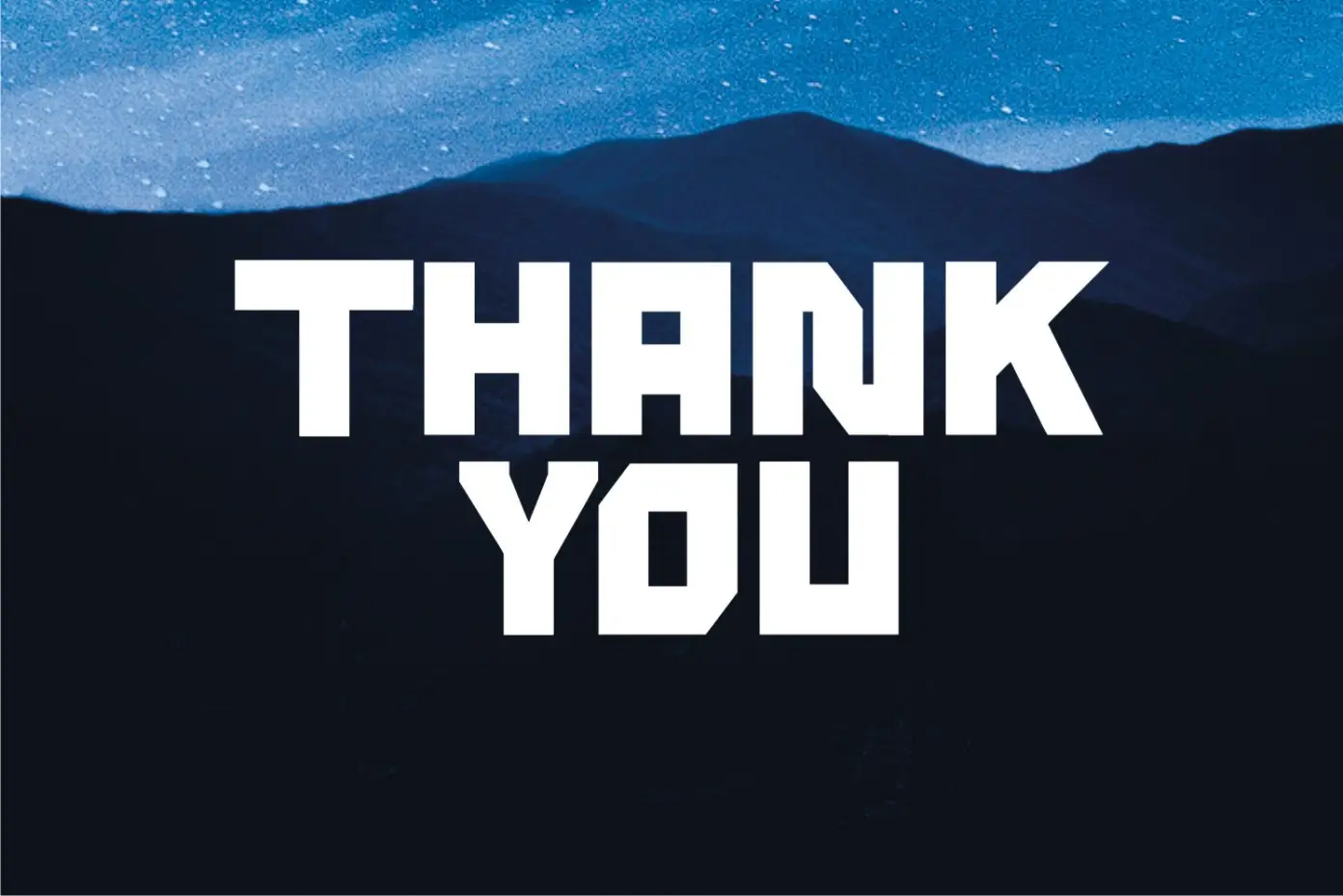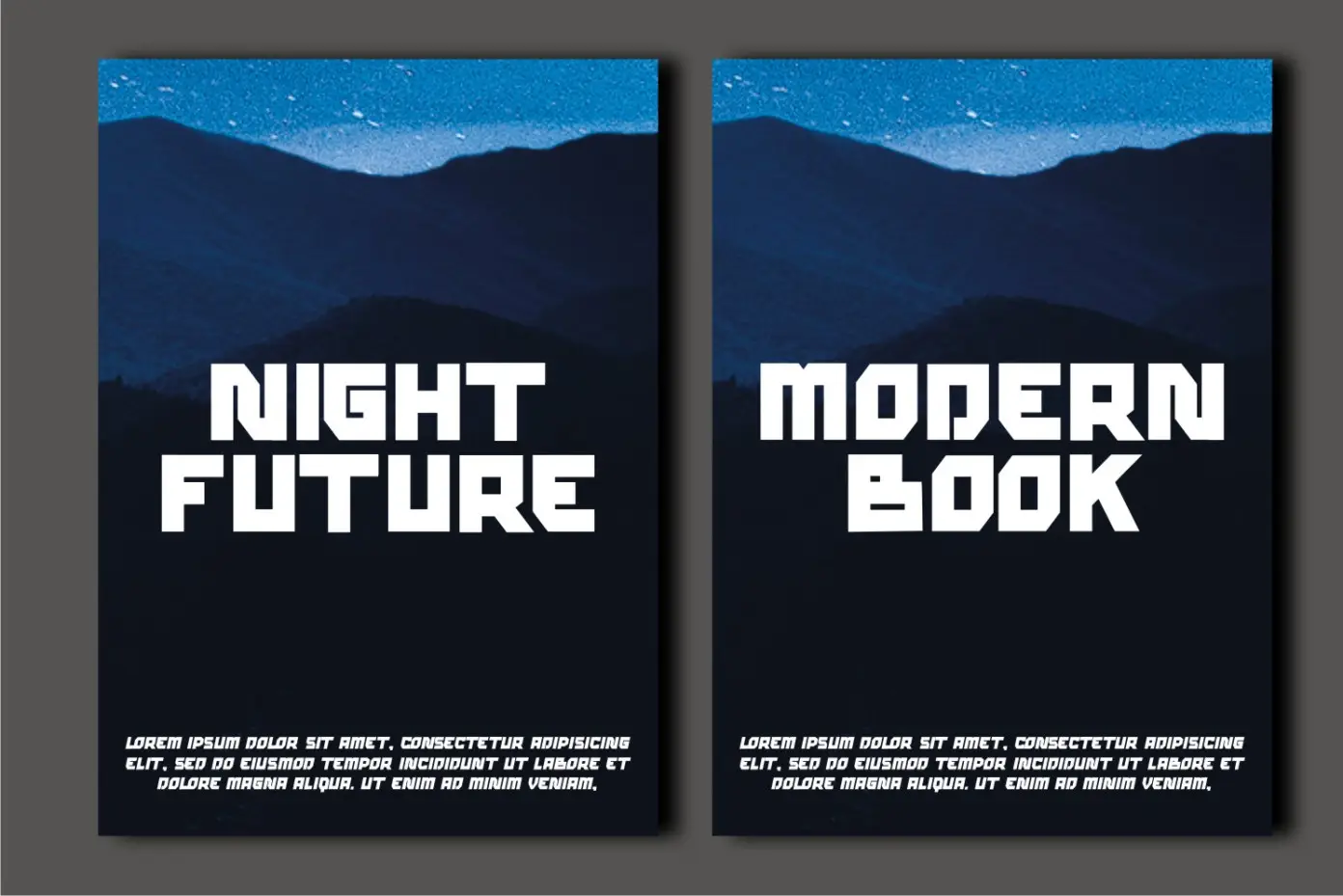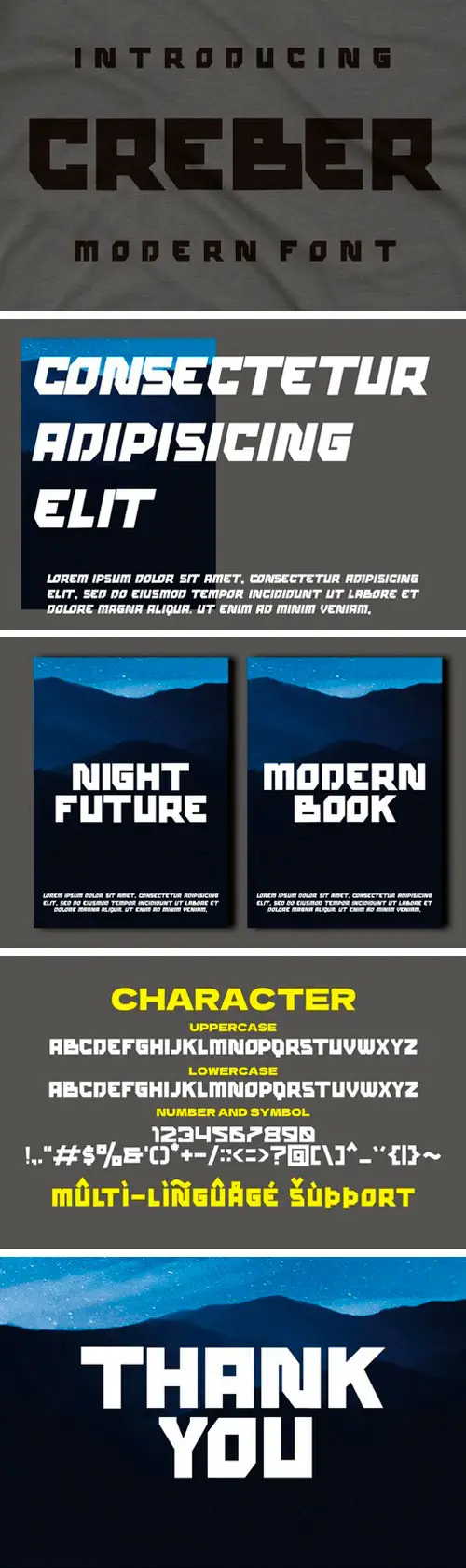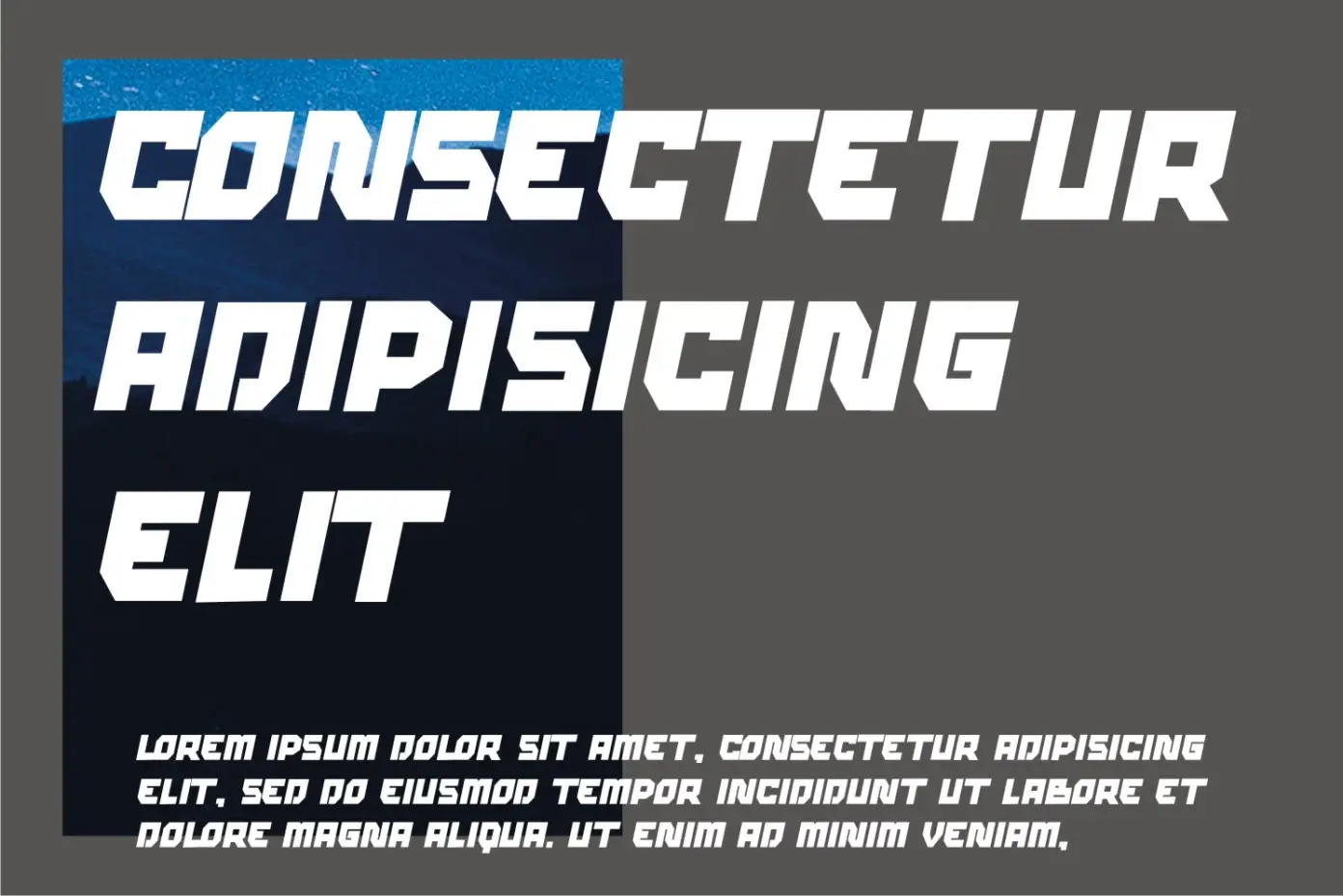
Creber Display Font
The Creber Display Font is a striking typeface designed for impactful visual communication. With its unique character and bold presence, this font is ideal for various applications, including branding, logos, and promotional materials.
Creber features a range of weights, allowing for versatility in design. It is available in OTF and TTF formats, ensuring compatibility across different platforms.
• Utilize Creber for eye-catching headlines and titles.
• Incorporate it into your branding materials for a cohesive look.
• Experiment with different weights to achieve the desired emphasis in your designs.